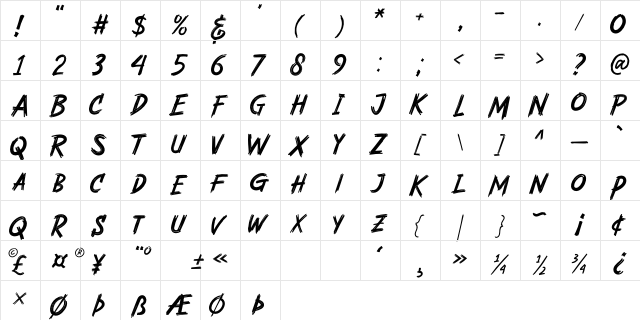
Rashkey Regular
| Designer | Ahmad Ramzi Fahruddin |
Design Context for Rashkey Typeface
Rashkey is a composed and adaptable typeface that performs quietly and consistently across a wide range of design contexts.